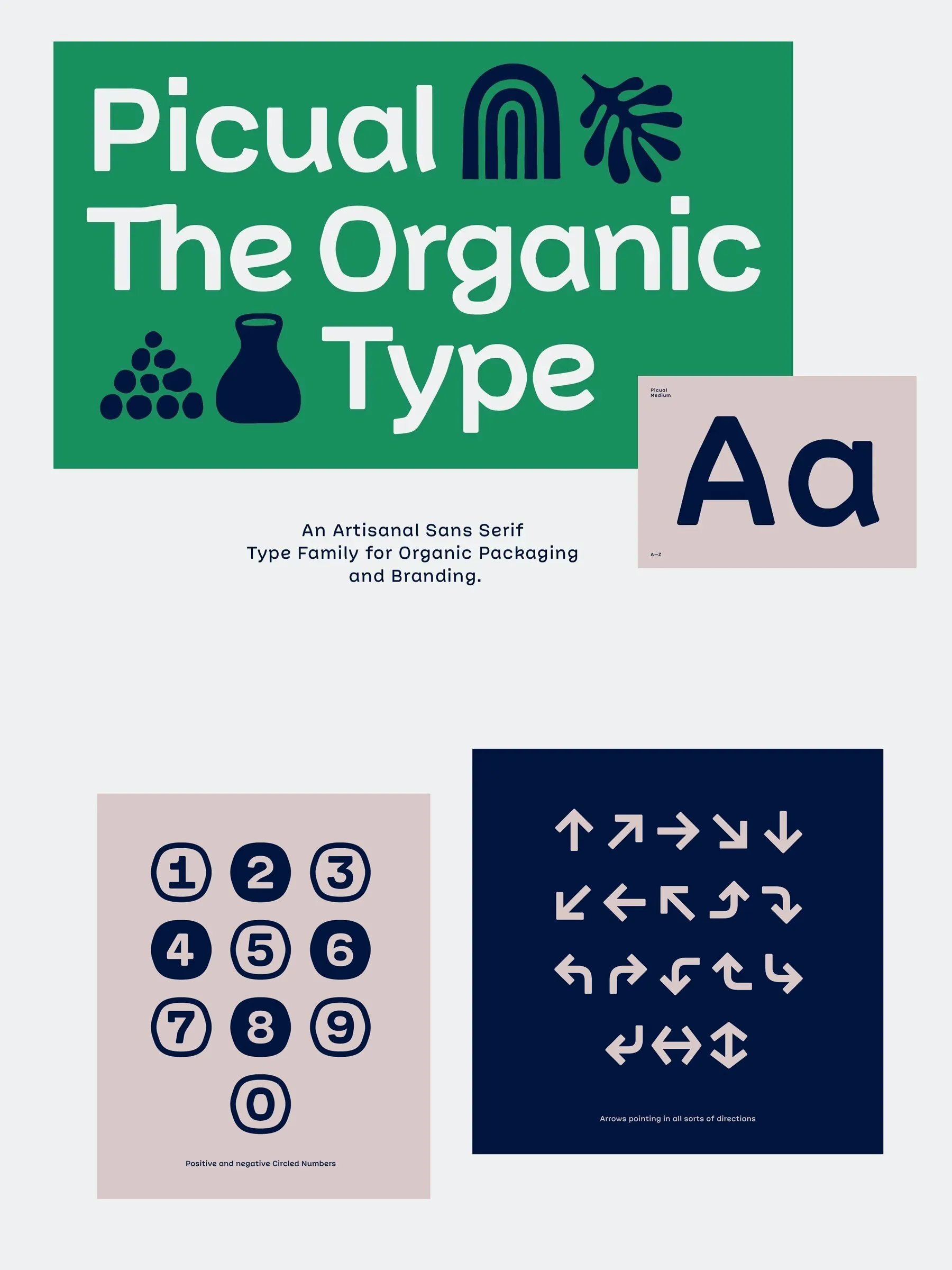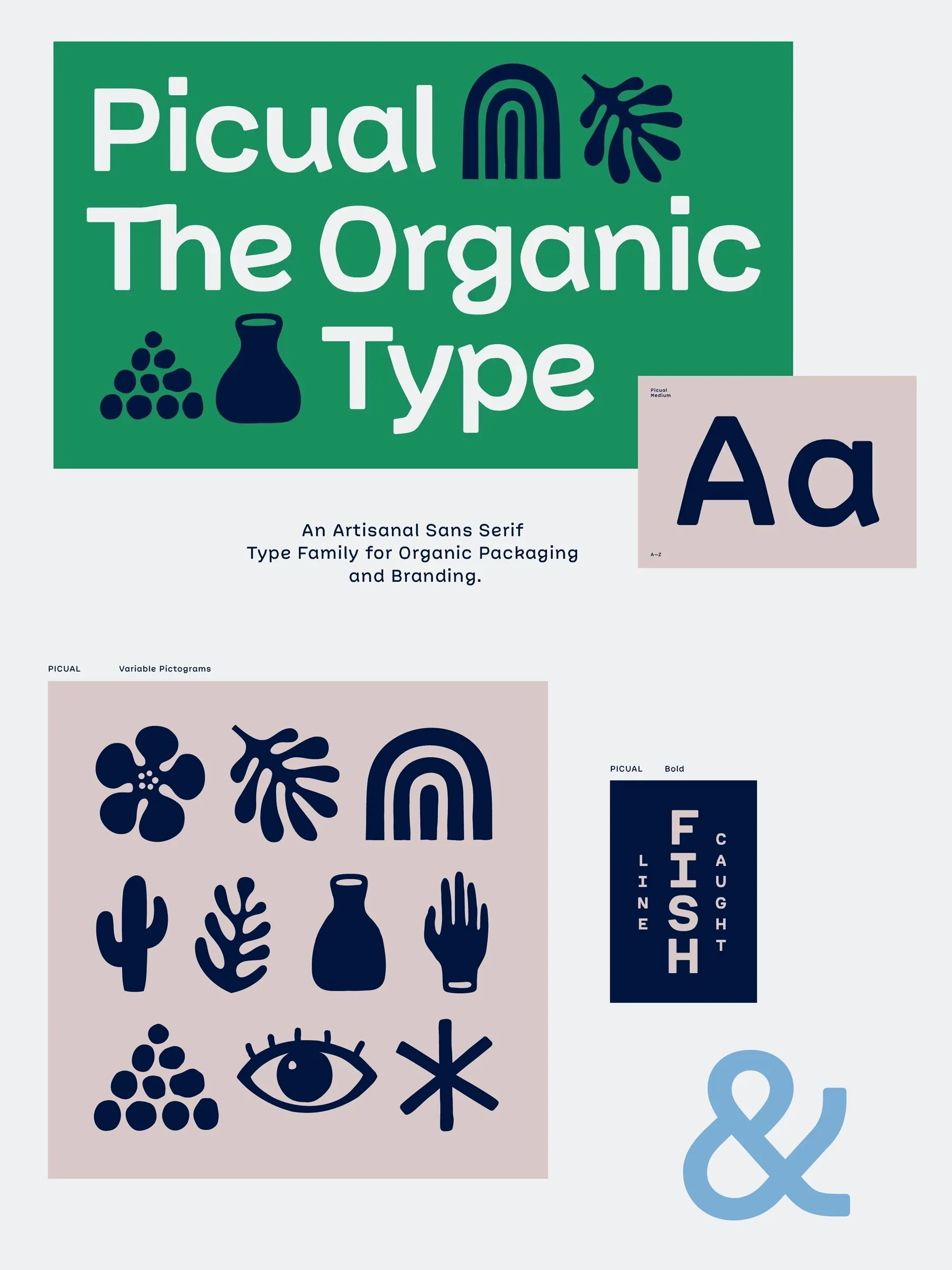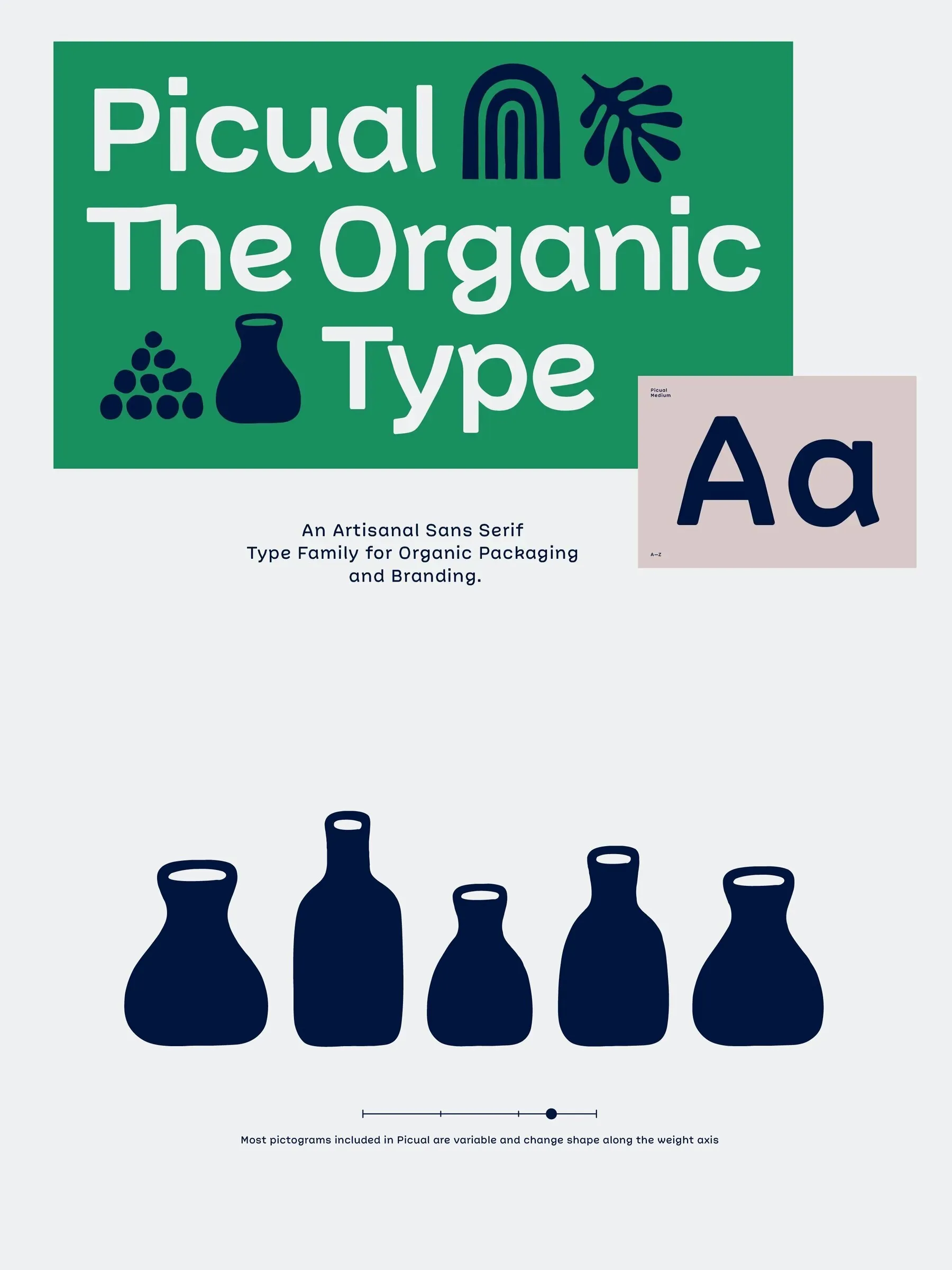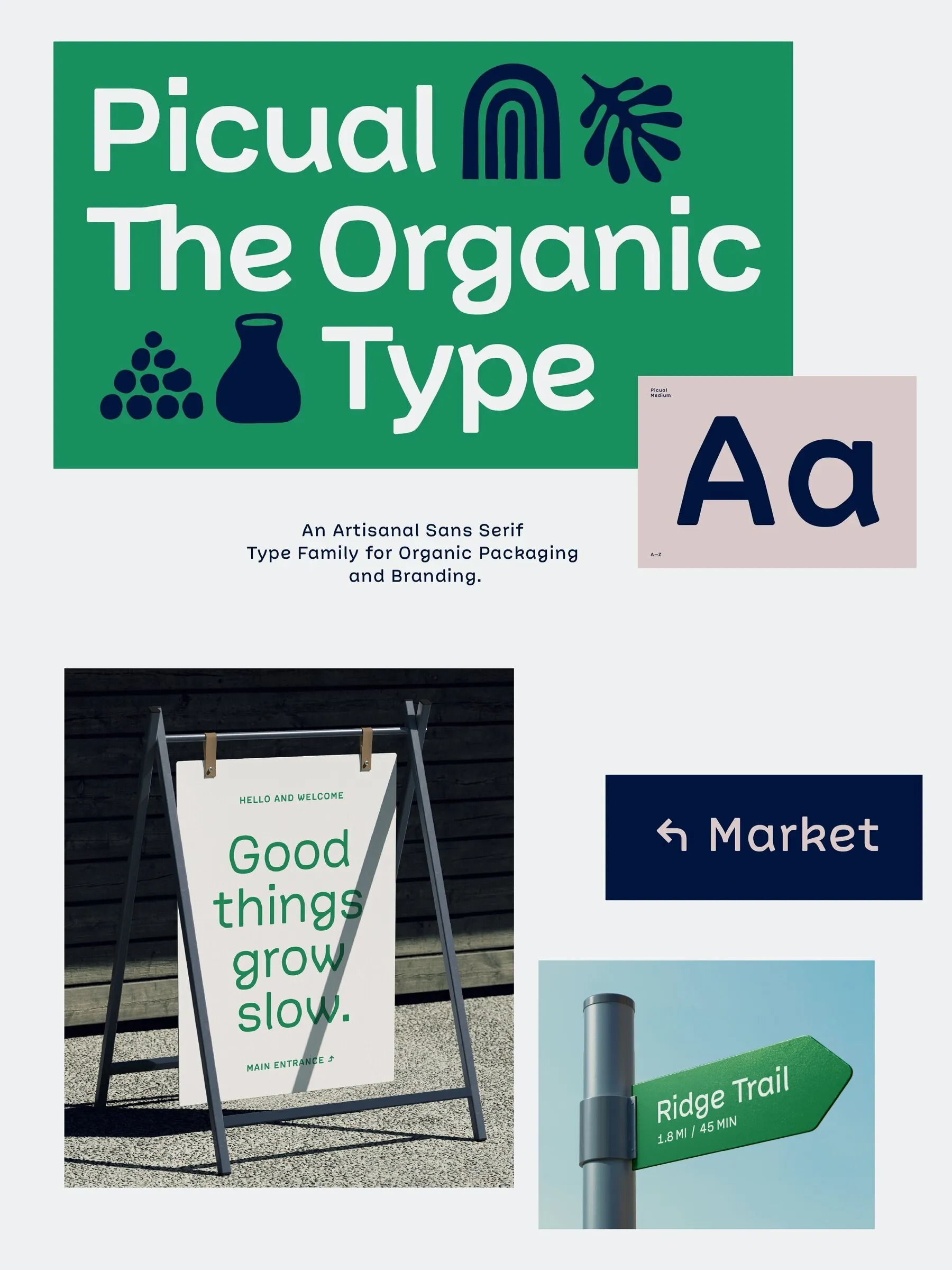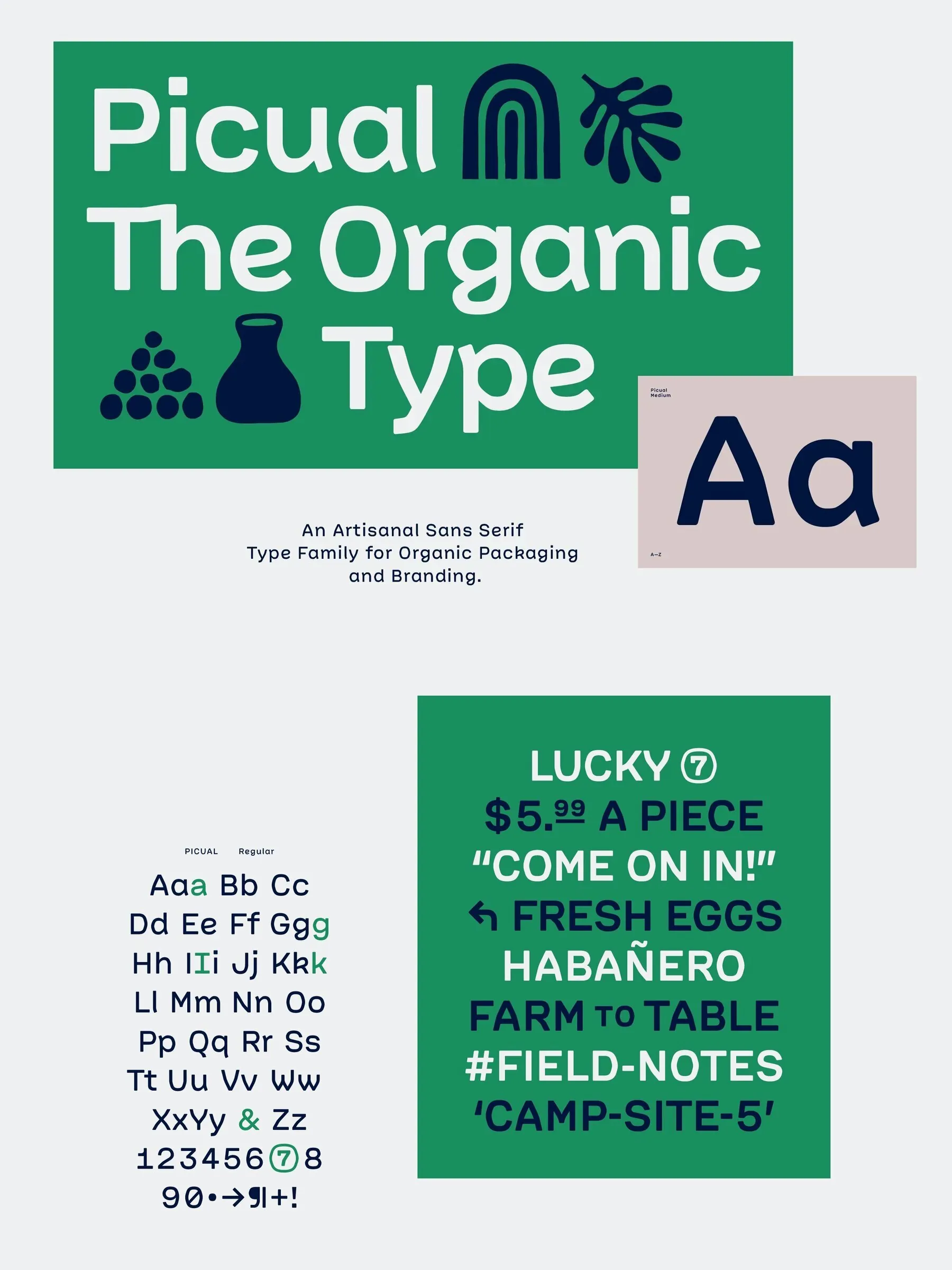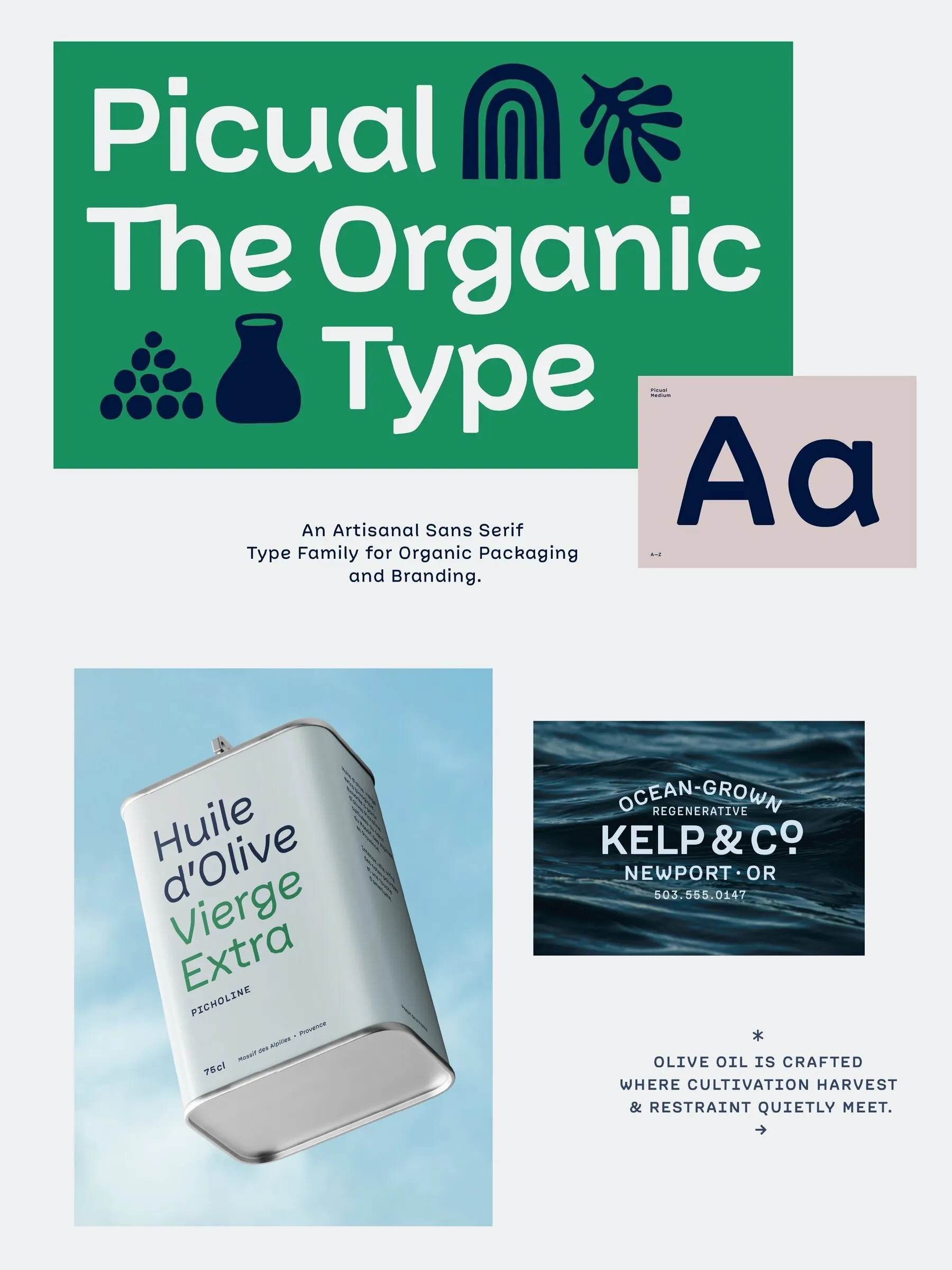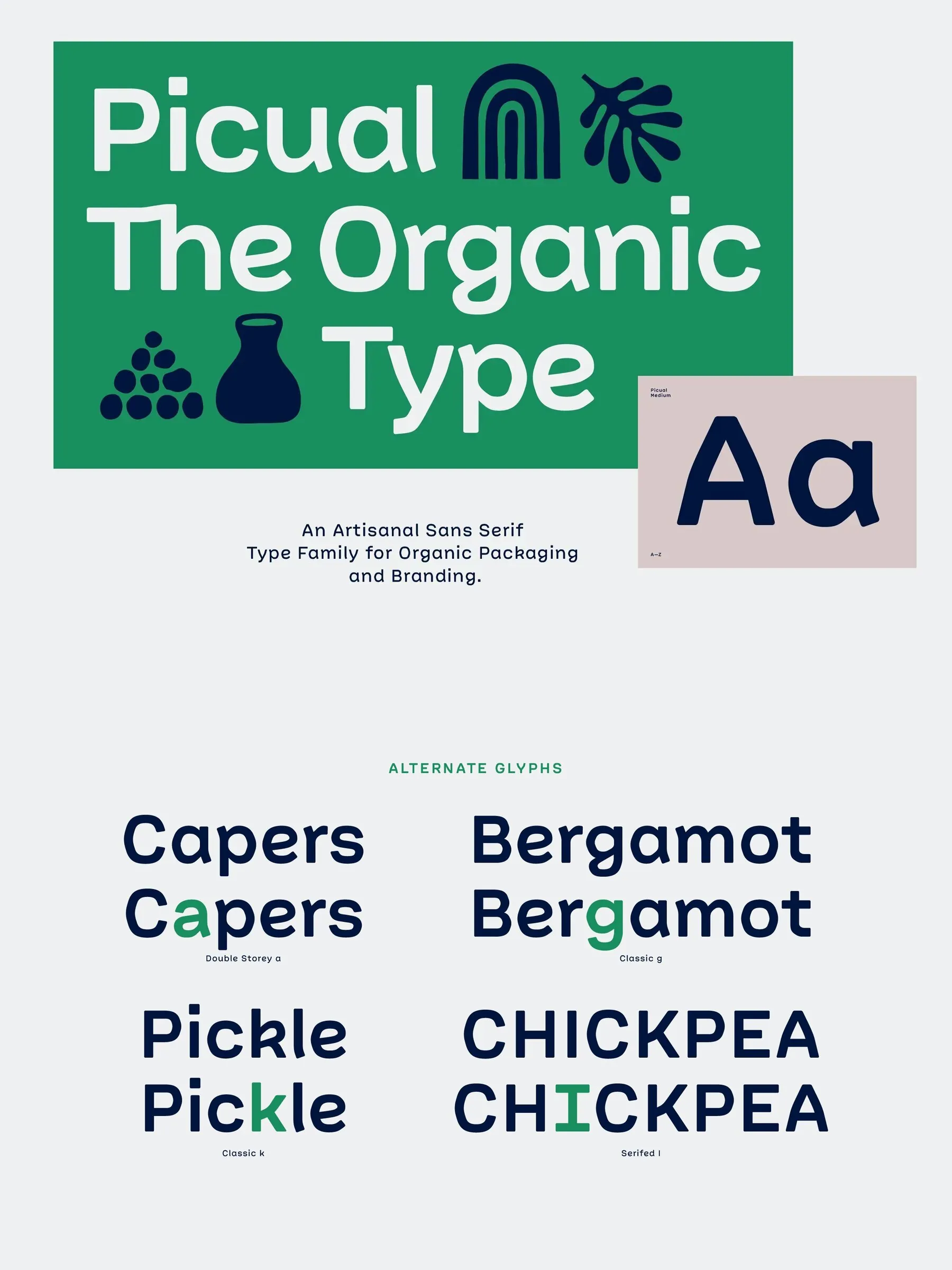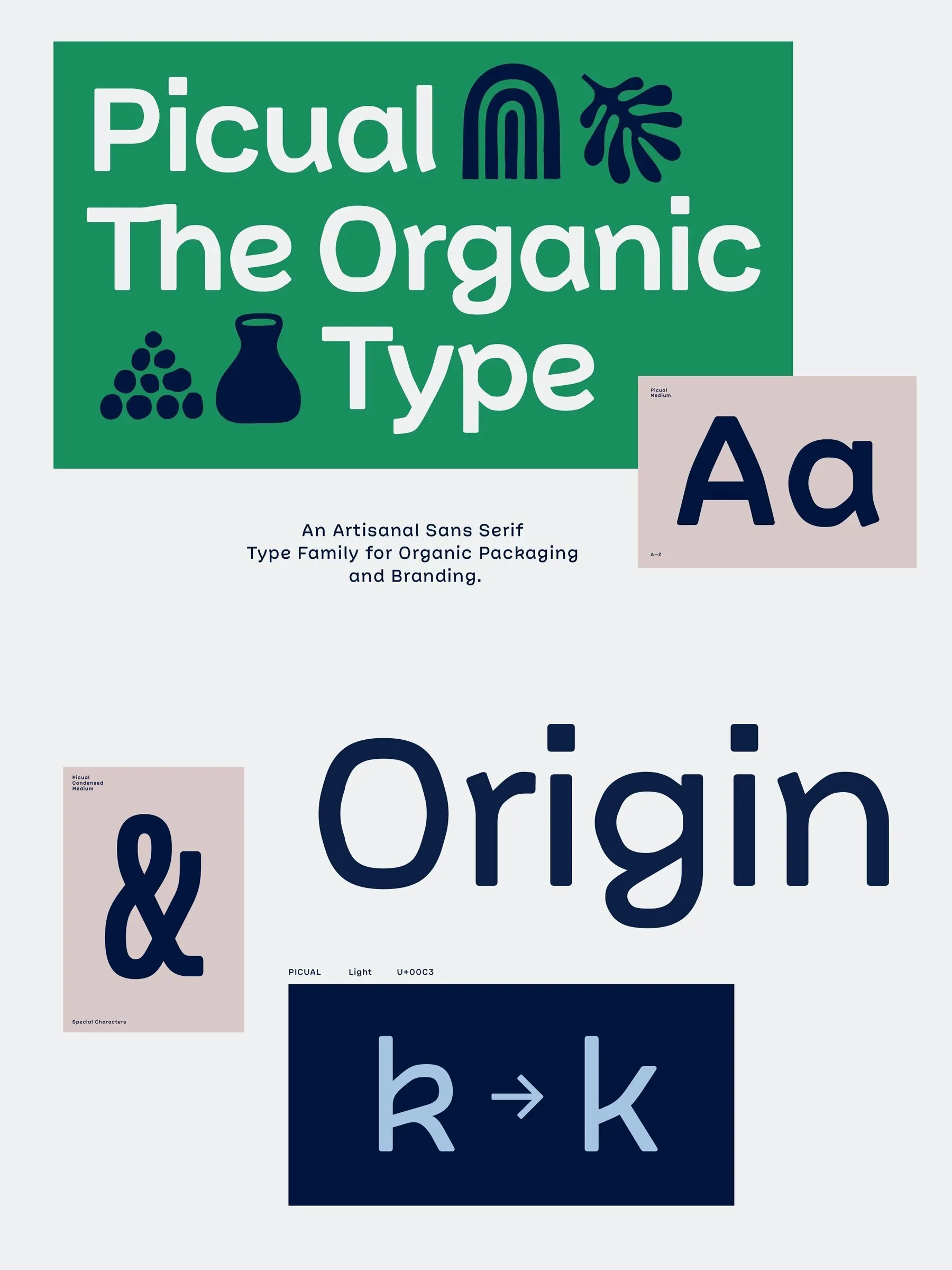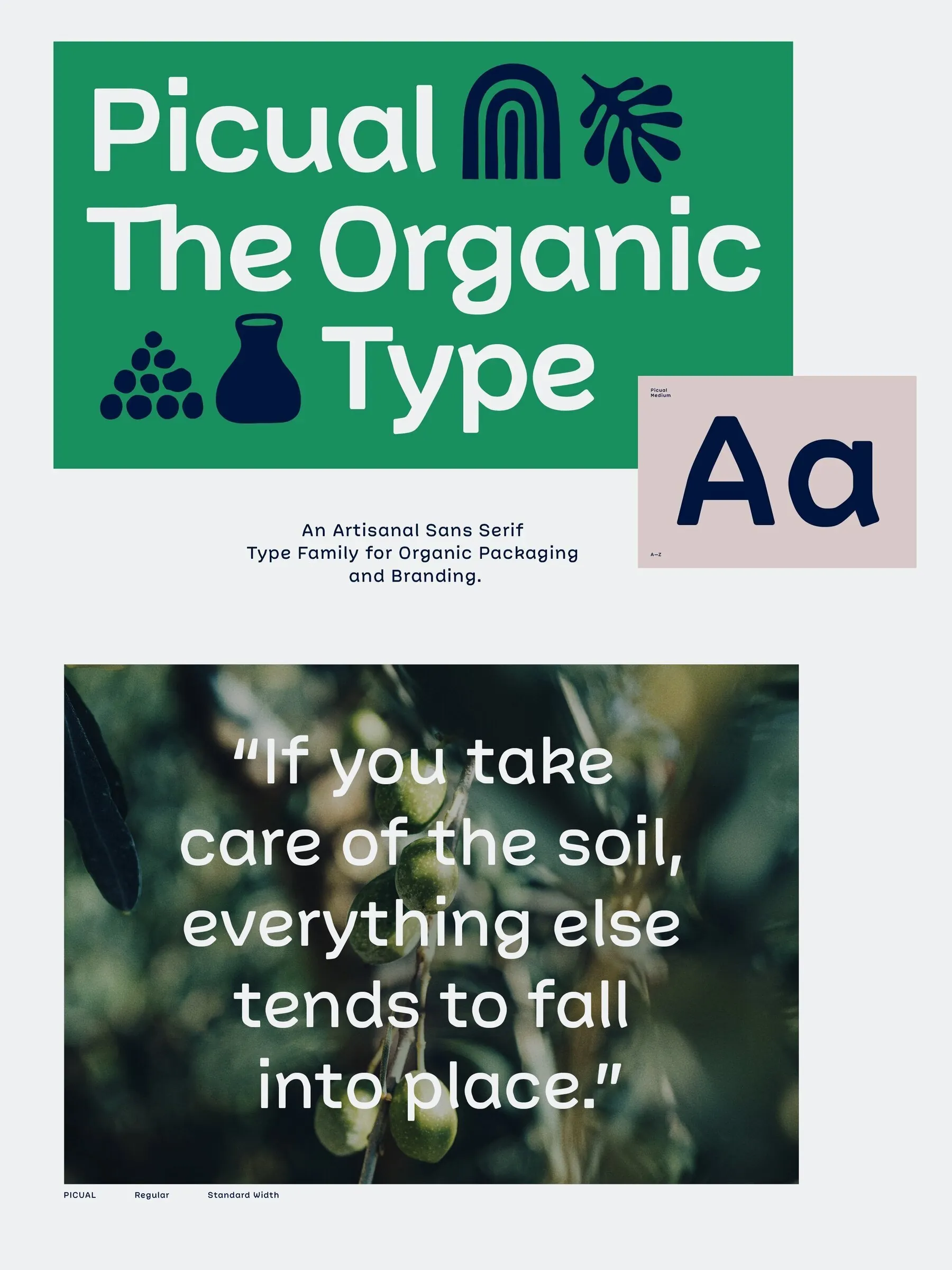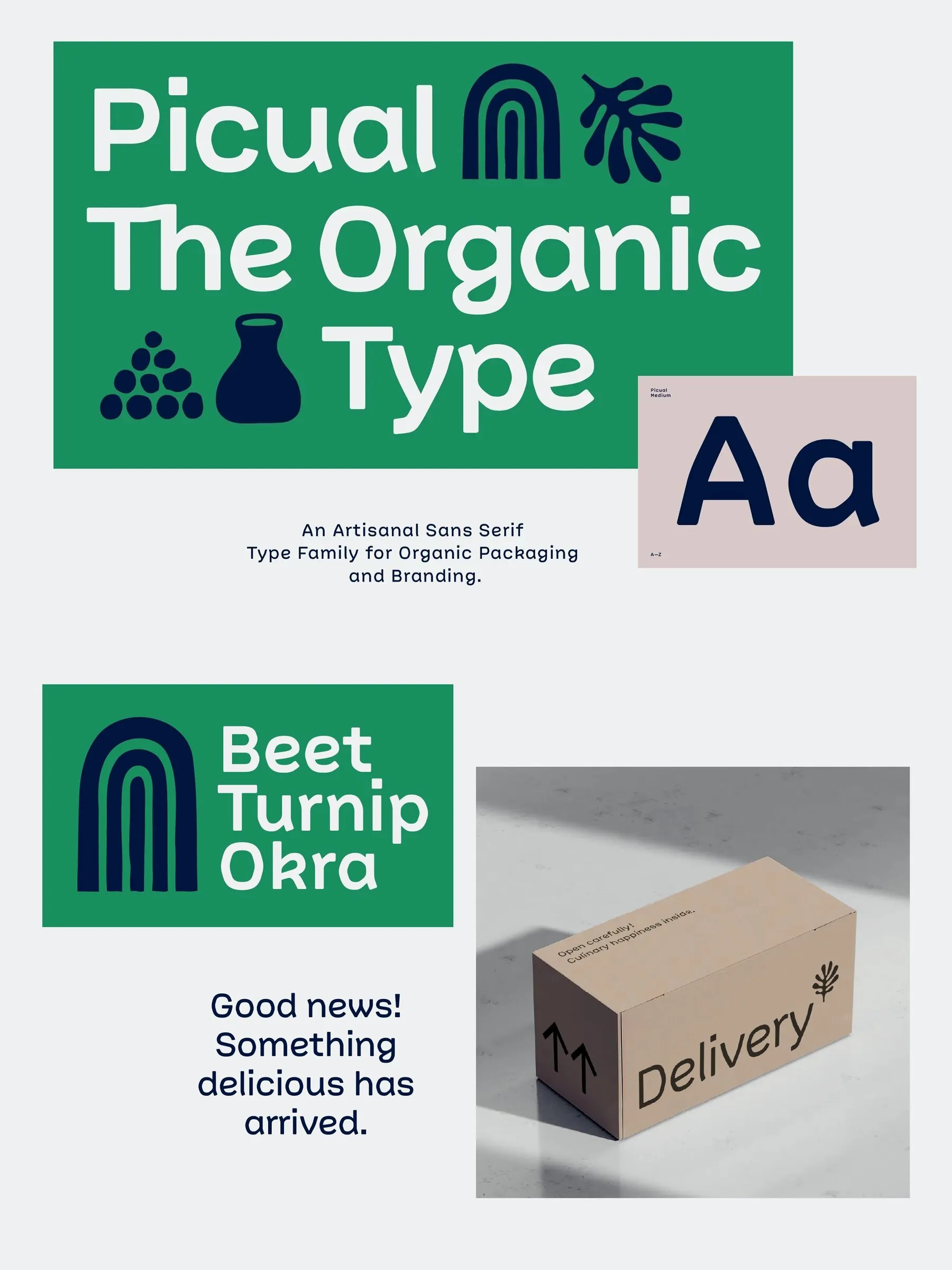
Picual: Hand-finished warmth for packaging
Built for packaging and branding in natural and organic settings, this distinctive sans serif type family brings idiosyncratic forms and a gently imperfect, handcrafted voice. Hexagonal rounds and angled terminals set the tone, while subtly softened corners keep the texture friendly and readable across applications.
Use it for artisanal pantry packaging, organic market signage, and sustainability-centered brands that need a grounded, human presence. The same qualities suit outdoor and adventure projects, where authenticity and simplicity matter in headlines, labels, and supporting copy.
Designed by Juri Zaech, the typeface takes its name from the Picual olive variety—known for high-quality olive oil—rooted in Spanish origin but cultivated globally. Designed in California, it balances heritage with modernity for contemporary brand systems.
Key Features
Four weights: Light, Regular, Medium, Bold.
Three widths: Standard, Condensed, and a third variant.
Available as a single variable font enabling smooth interpolation across all weights and widths.
Extended character set supporting over 200 Latin-based languages.
OpenType features including stylistic alternates for I, a, g, k, ampersand; circled numbers; automatic fractions; case-sensitive punctuation; and a discretionary Th ligature.
Picual’s clean yet characterful design meets the needs of designers looking for a natural, approachable sans serif with practical versatility and subtle charm.